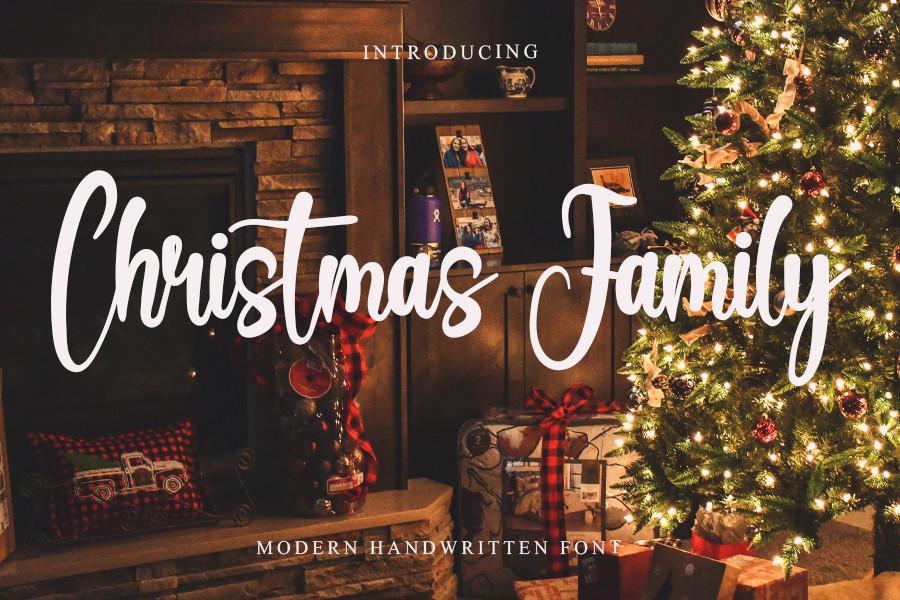
Christmas Family Font Description
Christmas Family is a gorgeous script font with a modern vibe and spotless form, inspired by a classic calligraphy. Not too thin and not too thick, balanced and varied, this font was designed to enhance the beauty of your projects.